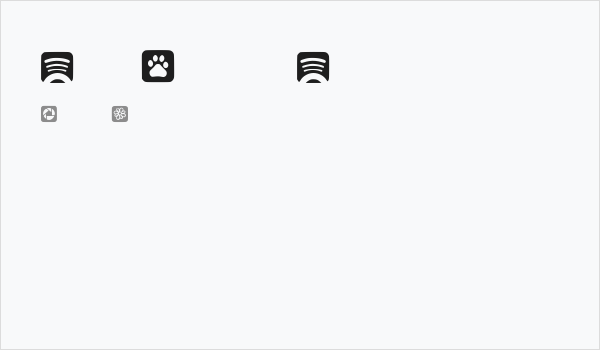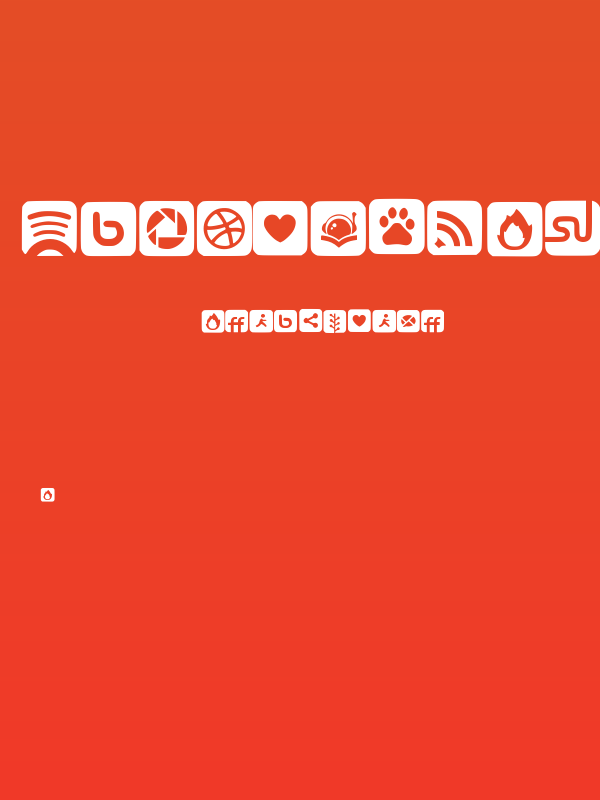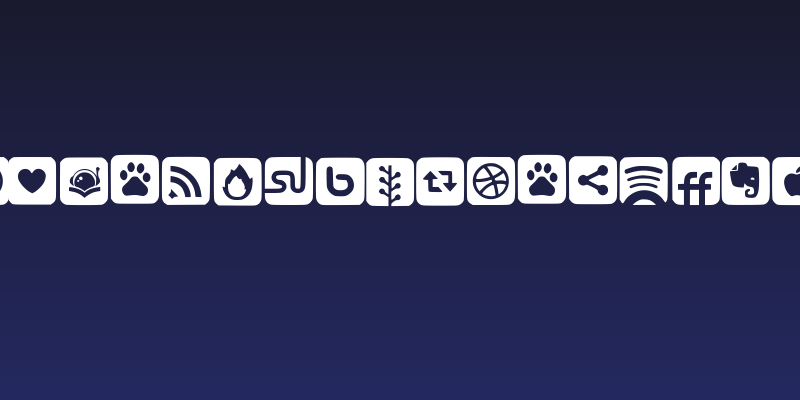
SocialNetworkingSymbols3 Font
SocialNetworkingSymbols3 Description
A collection of bold, monochrome social networking and web-related symbols enclosed in rounded square backgrounds, featuring a consistent, modern iconographic style.
| Overall Style | Modern, Iconographic |
| Use Case | Icons, UI elements, Social media links |
| Proposed Projects | App interfaces, website footers, social media buttons, digital marketing materials. |